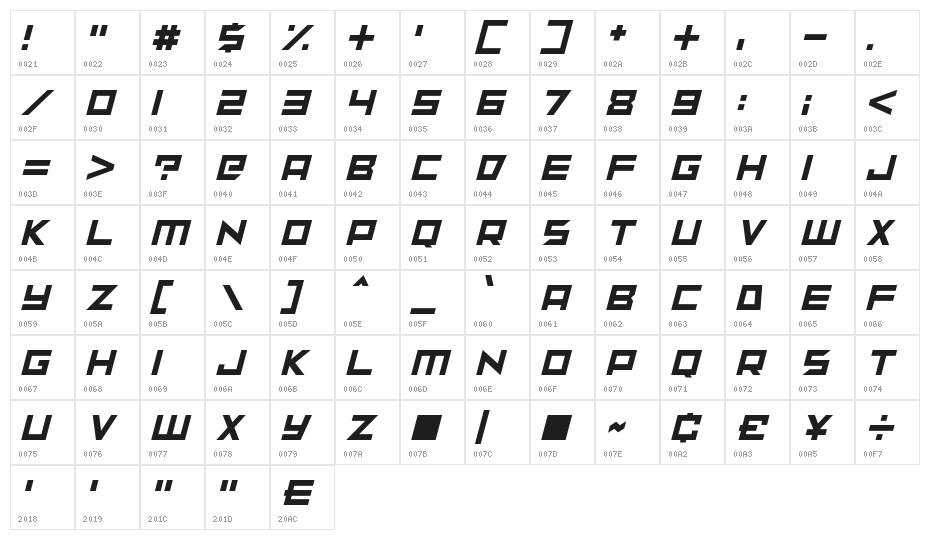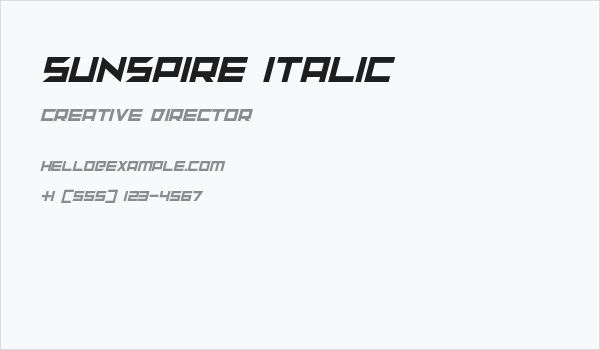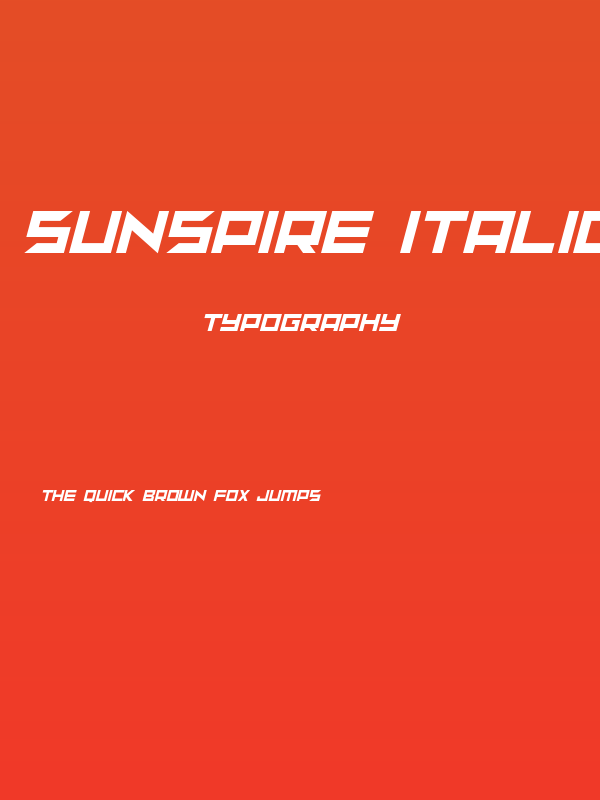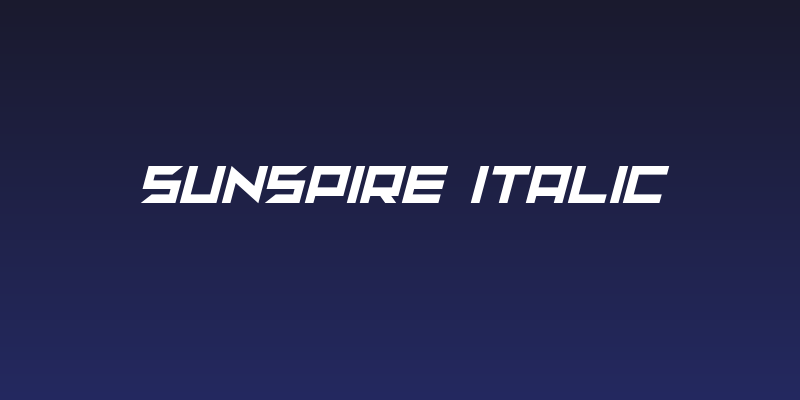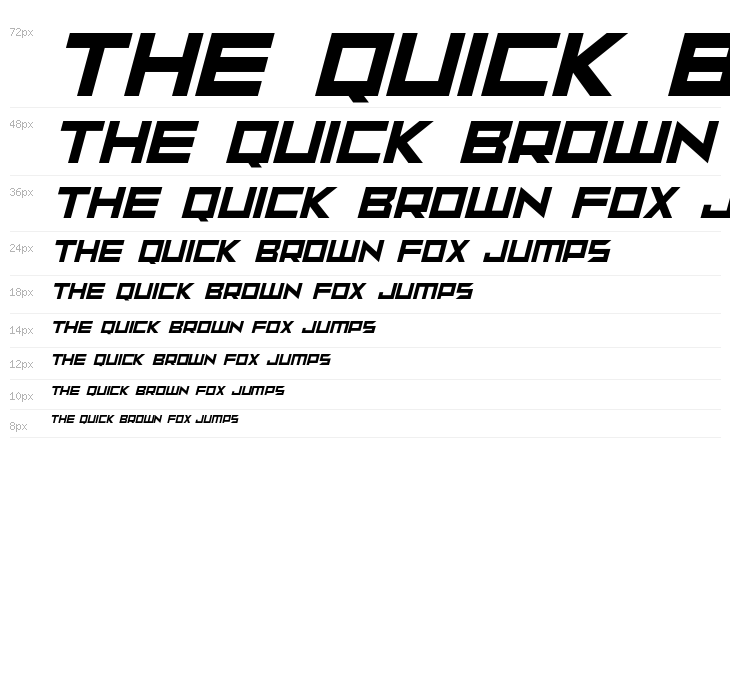
sunspire Italic Font
sunspire Italic Description
This font features a bold, italicized style with a modern and futuristic aesthetic. The characters are angular and dynamic, with sharp edges and a forward-leaning posture that conveys a sense of motion and speed. The uppercase and lowercase letters maintain a consistent geometric structure, while the numerals and special characters complement the overall design with similar angular forms. The font's bold weight and italic slant make it suitable for attention-grabbing headlines and impactful designs. Its unique style is ideal for projects that require a contemporary and edgy look.
Darrell Flood
| Proposed Projects | Ideal for futuristic branding, sports team logos, tech-related advertisements, and dynamic poster designs. |